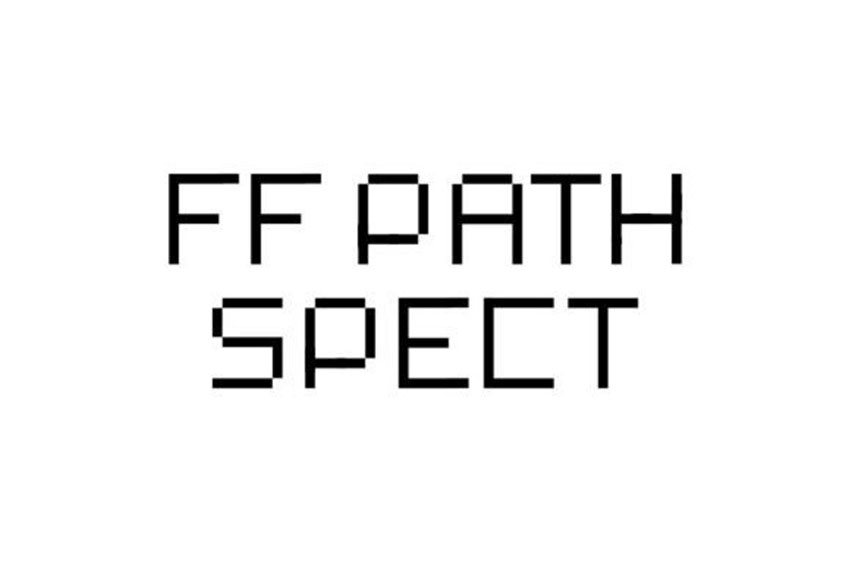
Ff Path Spect Font
Ff Path Spect Font is ideal for tech-inspired designs, sleek branding, or bold headlines.
It blends style and readability effortlessly, helping your visuals shine with a font that makes every pixel count.